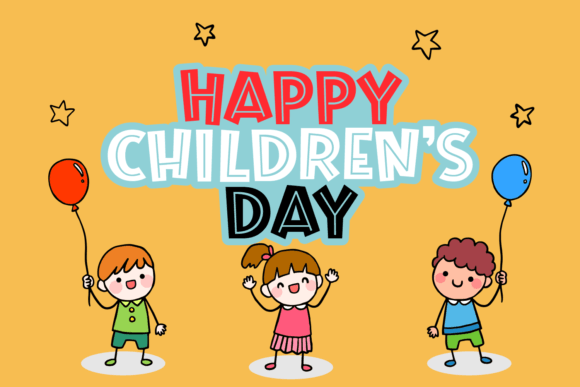
While Smile Font
While Smile is a playful and fun font that looks like the letters are smiling. Each letter has a thin version inside a thicker, bold outline, making it look friendly and cheerful. It’s perfect for kids’ projects or anything that needs a happy touch!